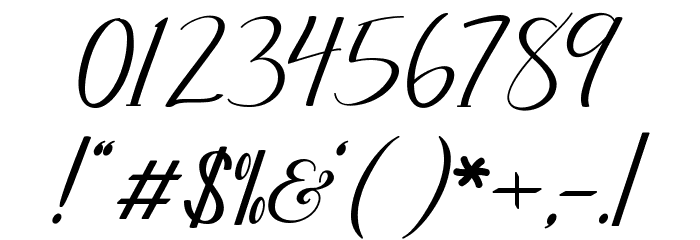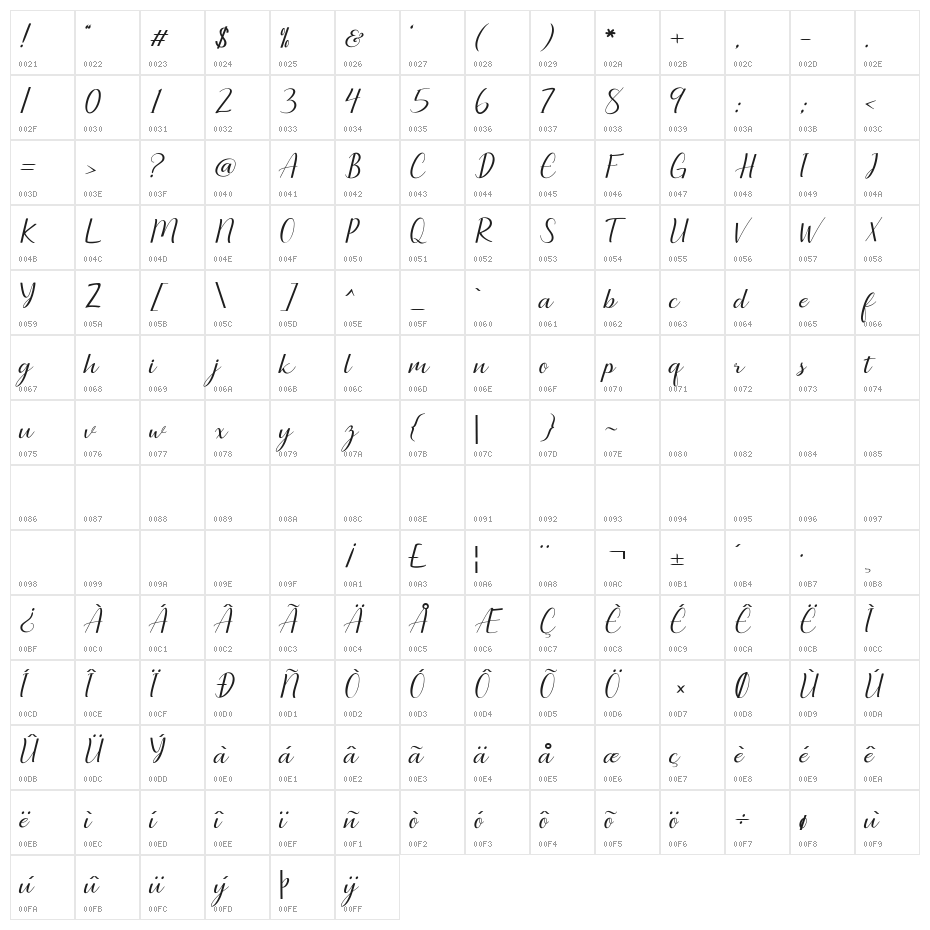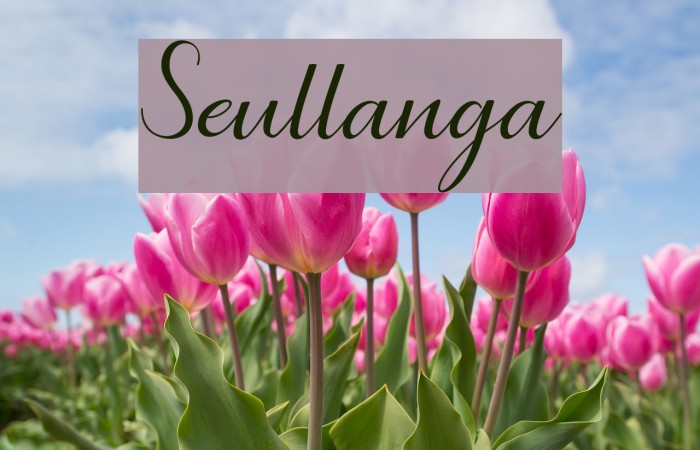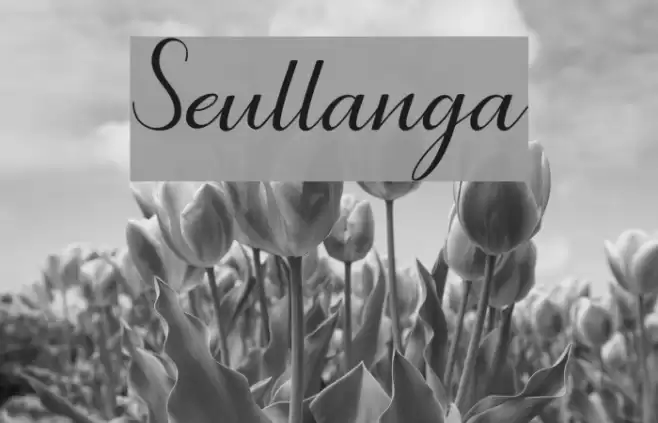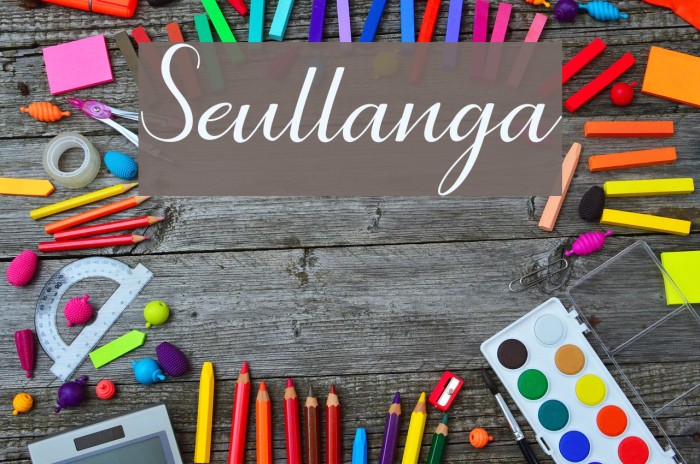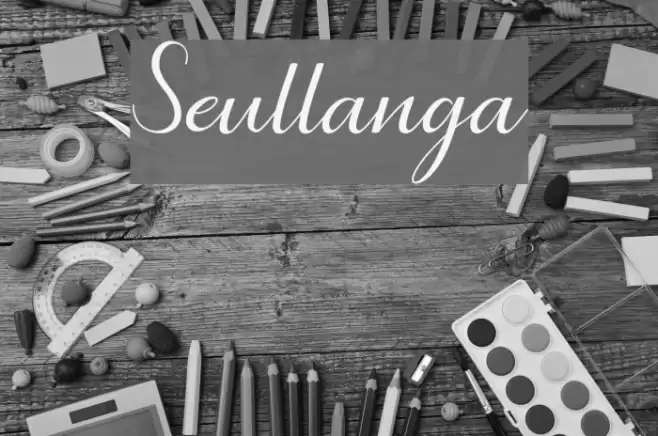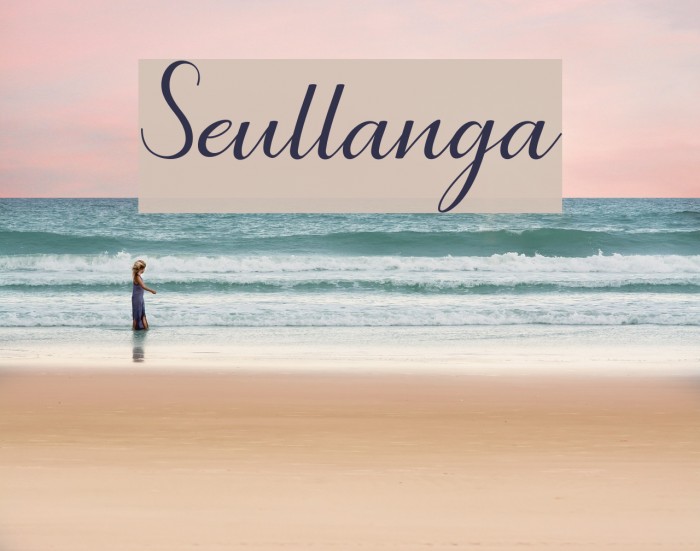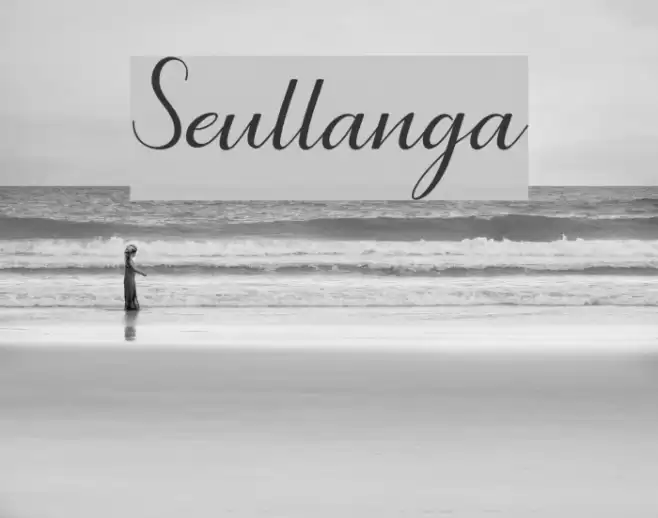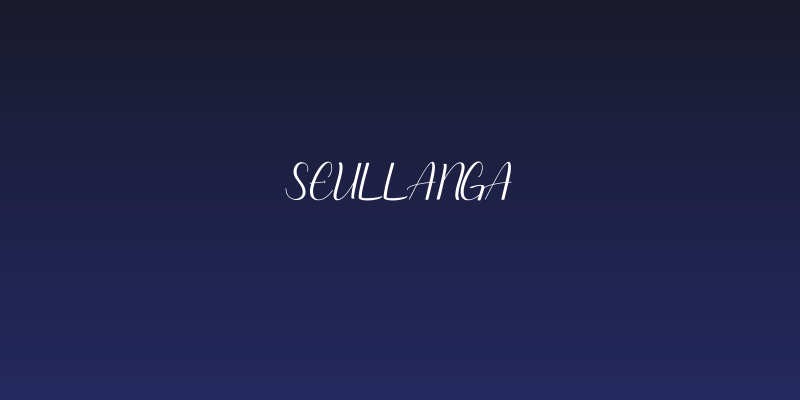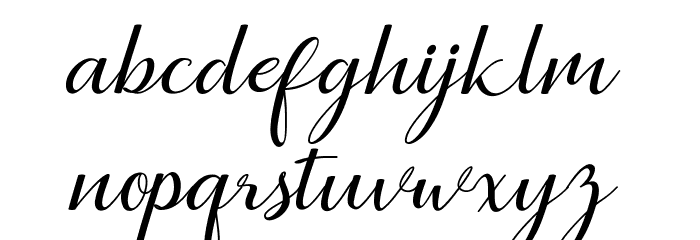
Seullanga Font
Seullanga Description
This font features an elegant and flowing script style, characterized by its graceful curves and fluid strokes. The uppercase letters exhibit a sophisticated flair with elongated lines and subtle flourishes, while the lowercase letters maintain a consistent and harmonious rhythm. The numerals are stylishly crafted, complementing the overall aesthetic with their smooth and rounded forms. Special characters are thoughtfully designed to integrate seamlessly with the alphabet, enhancing the font's versatility. This font exudes a sense of refinement and creativity, making it ideal for projects that require a touch of elegance and personal expression.
| Proposed Projects | Ideal for wedding invitations, greeting cards, branding, and elegant packaging designs. |